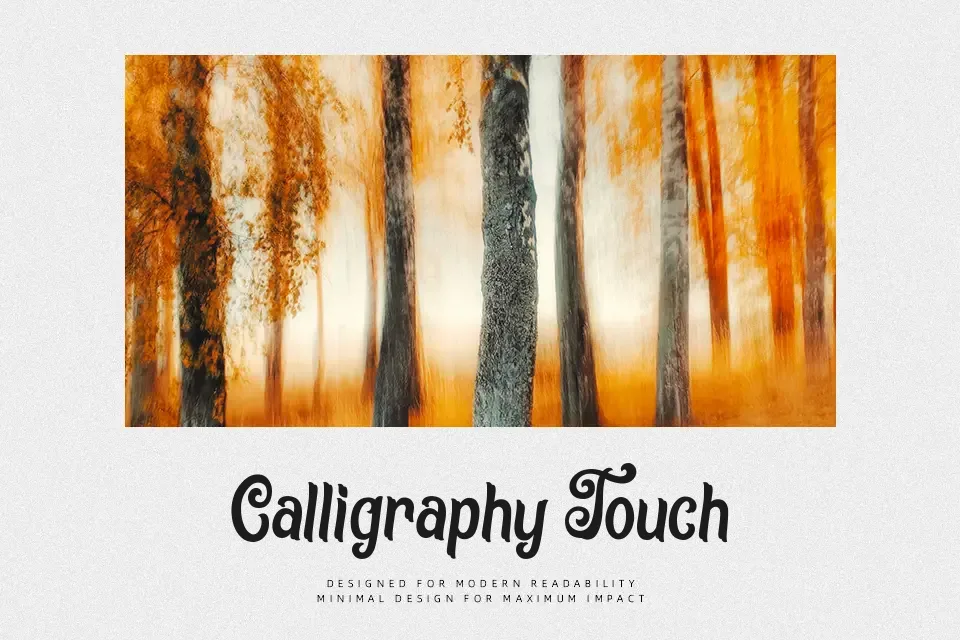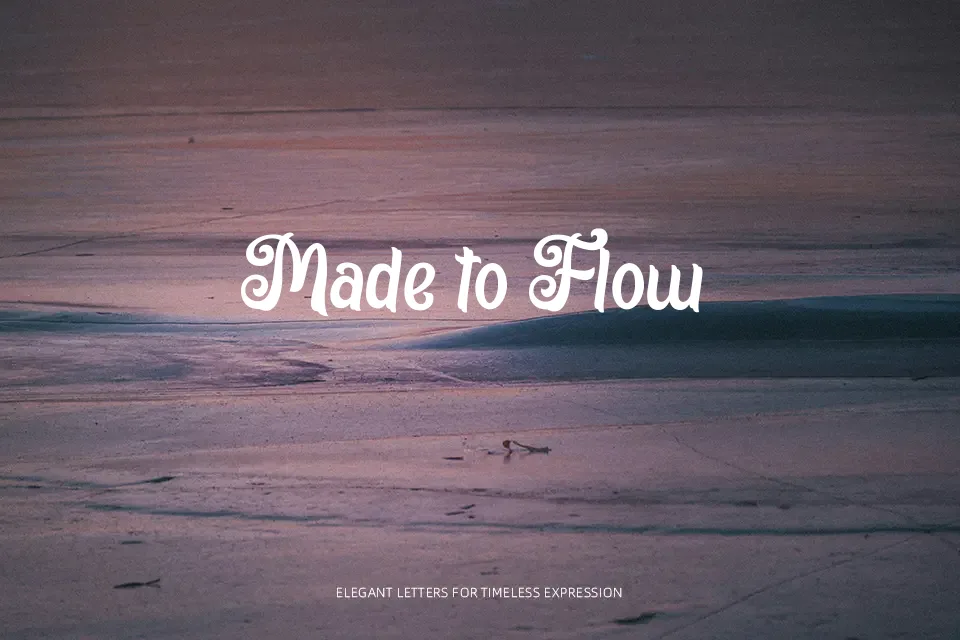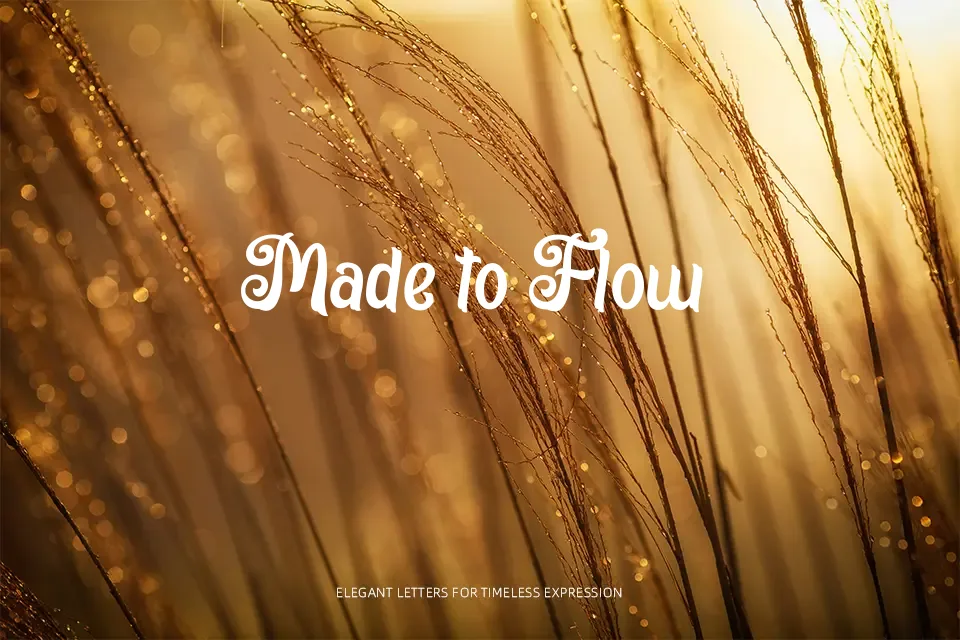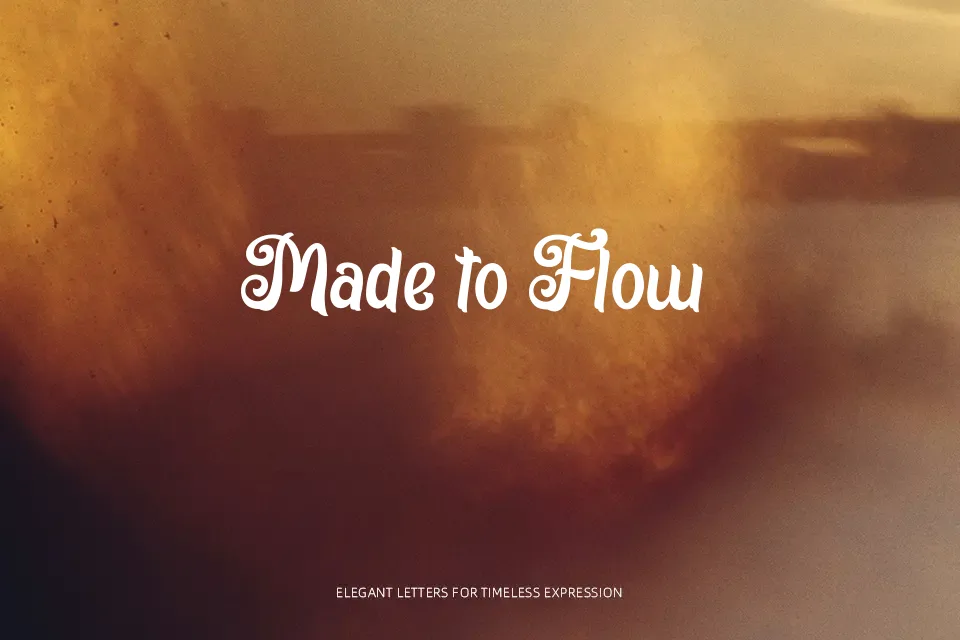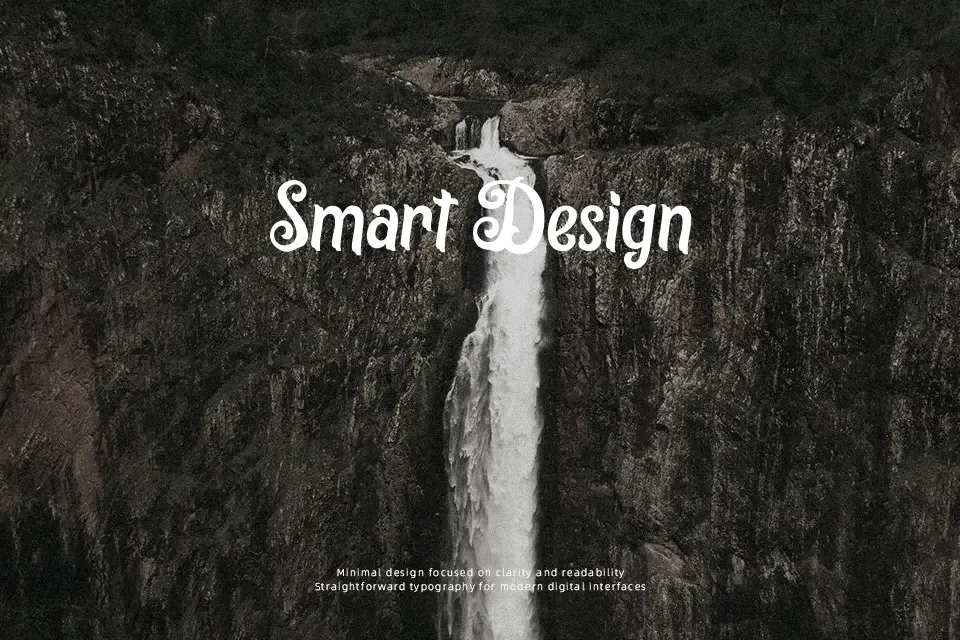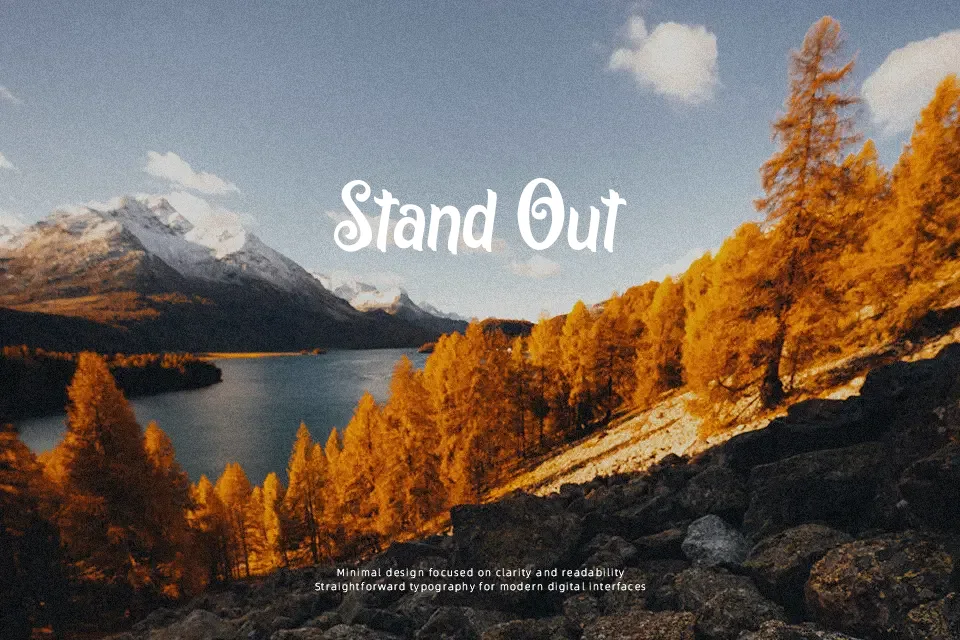
Rellieva Font
Rellieva Font introduces a lively rhythm to typographic layouts with its elaborate curls and bouncy letterforms. The sweeping terminals and fluid strokes give the typeface a distinctively joyful and feminine character. Spacing is kept relatively open to accommodate the generous swashes, preventing the letters from feeling overly cramped. For display applications like cosmetic packaging, boutique logos, and engaging social media headers, this design performs exceptionally well. However, the highly decorative nature of the curves means it is less suitable for continuous reading or dense editorial layouts, where the playful details can distract the eye and reduce overall clarity.
cosmetic packaging, boutique branding, social media headers, feminine logos
continuous reading, dense editorial layouts, small interface labels, corporate reports
Perfect for branding, logo, and packaging, with a creative and decorative style.